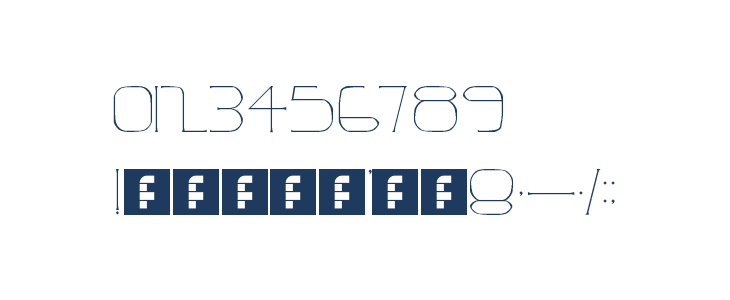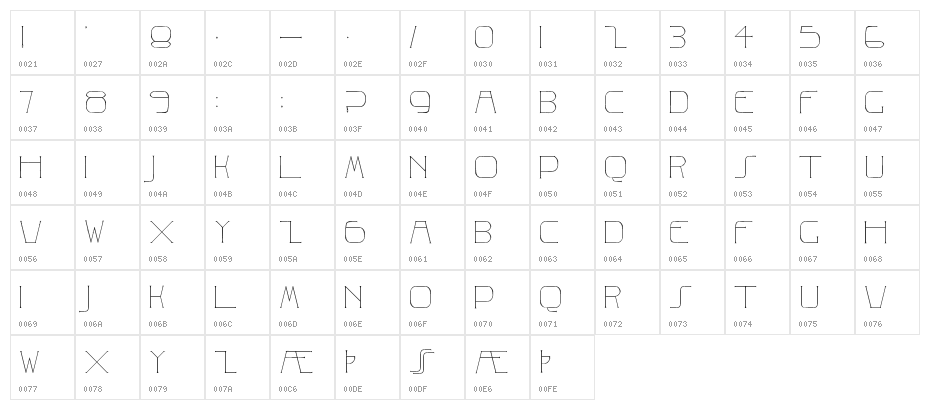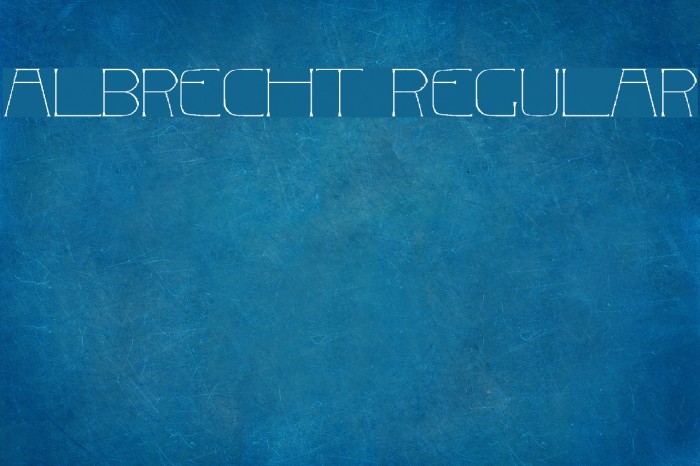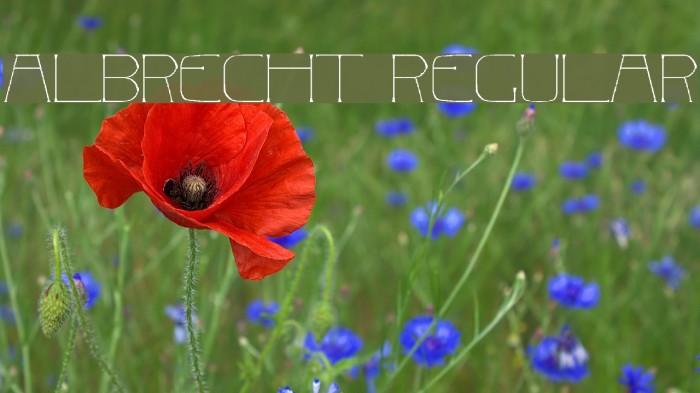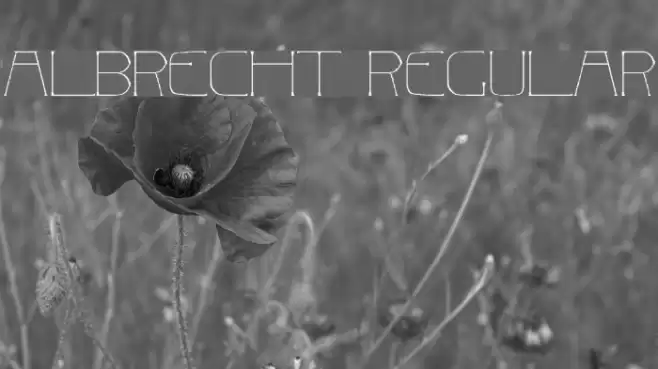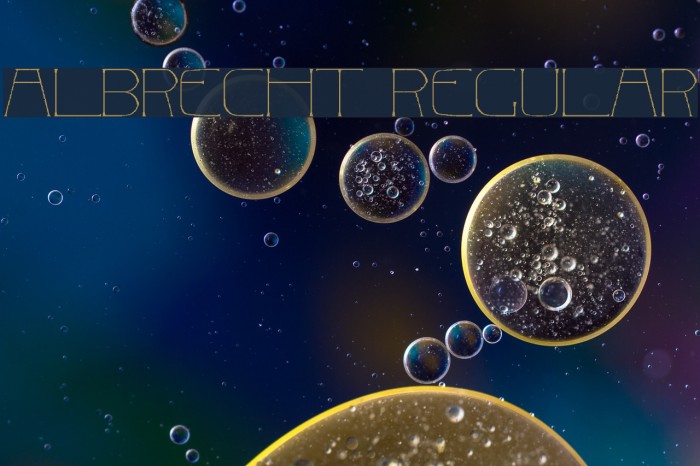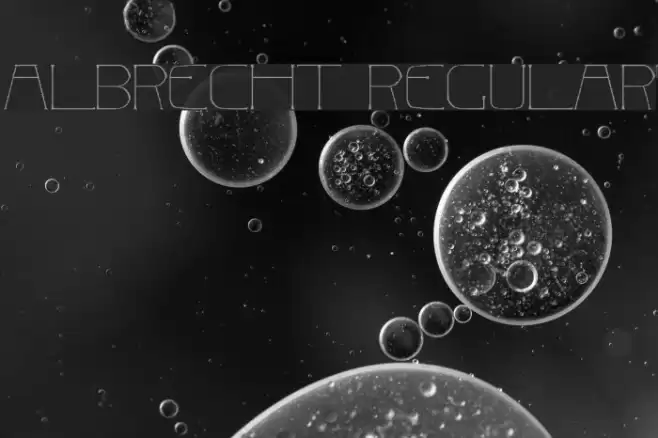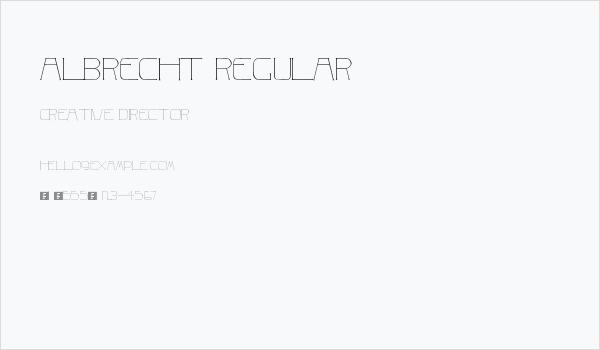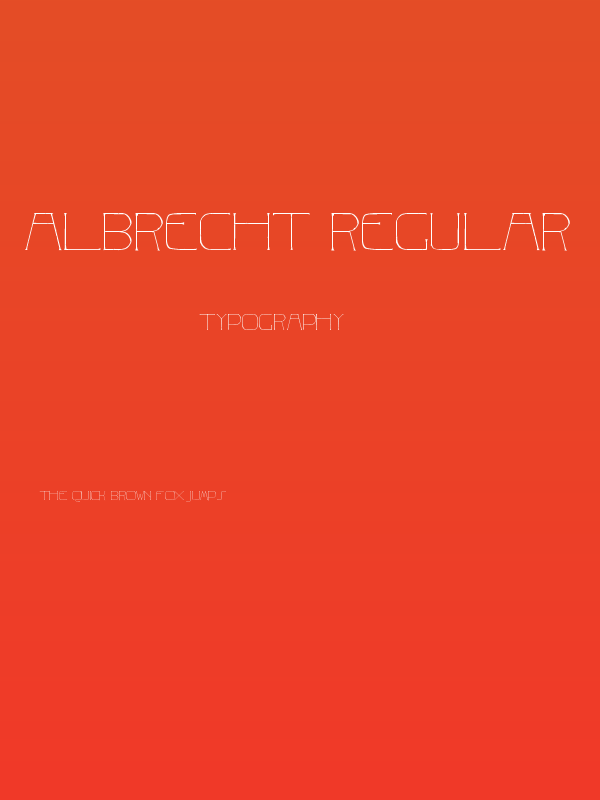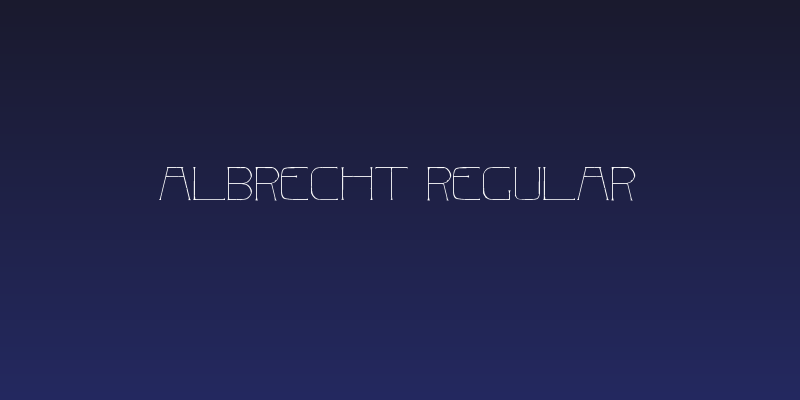
Albrecht Regular Font
Albrecht Regular Description
This font features a geometric and minimalist design, characterized by its thin, linear strokes and angular forms. The characters are constructed with a focus on simplicity and clarity, offering a modern and futuristic aesthetic. The uppercase and lowercase letters maintain a consistent height, contributing to a uniform appearance. The numerals and special characters are designed with the same precision, ensuring a cohesive look across all elements. This font's clean lines and open spacing make it highly legible, suitable for various design applications where a contemporary and sleek style is desired.
| Proposed Projects | Ideal for modern branding, tech-related designs, minimalist posters, and digital interfaces. |